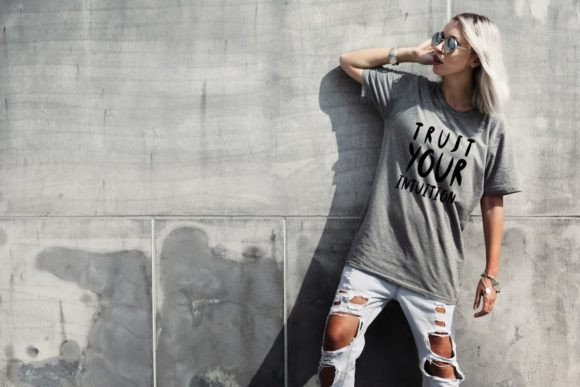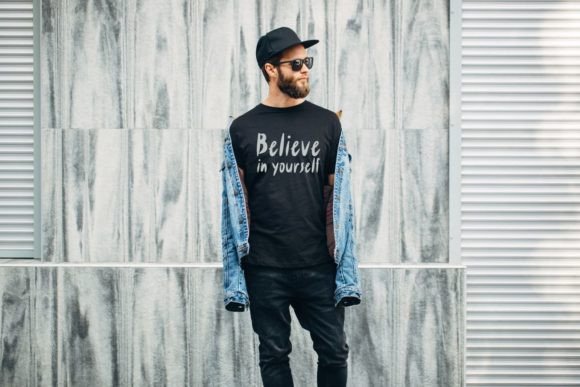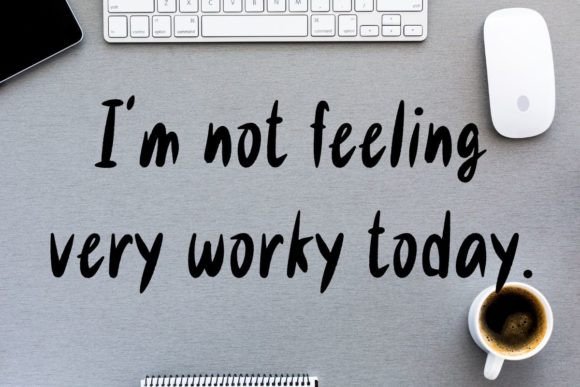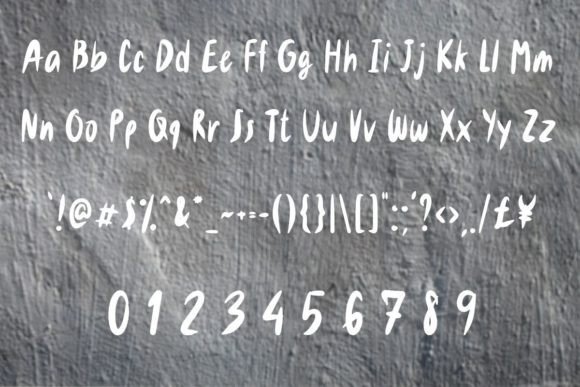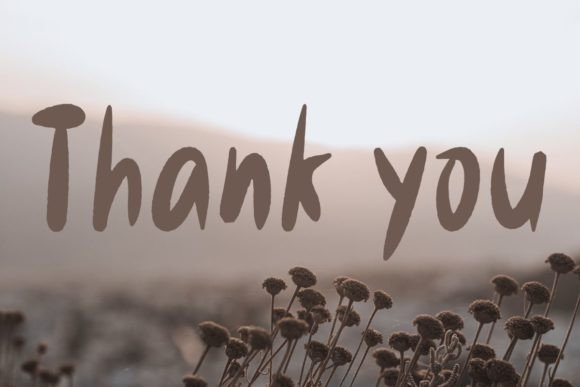
Introducing Animal Font: The Ultimate Choice for Creative Projects
Are you a designer, crafty person, or simply someone who loves to create unique and eye-catching content? Look no further! We’re excited to introduce you to Animal Font, a bold, hand-drawn font that’s perfect for bringing your creative ideas to life. In this article, we’ll dive into the features and benefits of Animal Font, and explore how you can use it to elevate your designs.
What is Animal Font?
Animal Font is a bold, hand-drawn font that’s designed to be both cute and thick. Its unique characters are carefully crafted to make a statement, making it perfect for creating posters, banners, advertising materials, covers, and many more. Whether you’re working on a personal project or a professional assignment, Animal Font is sure to add a touch of personality and whimsy to your designs.
Key Features of Animal Font
- Bold and Hand-Drawn: Animal Font is a bold, hand-drawn font that’s designed to stand out. Its unique characters are carefully crafted to make a statement.
- Cute and Thick: The font’s cute and thick characters make it perfect for creating eye-catching designs that appeal to a wide range of audiences.
- Versatile: Animal Font is versatile and can be used for a variety of projects, including posters, banners, advertising materials, covers, and more.
Benefits of Using Animal Font
- Adds Personality to Your Designs: Animal Font adds a touch of personality and whimsy to your designs, making them stand out from the crowd.
- Perfect for Kids and Adults Alike: The font’s cute and playful characters make it perfect for designs that appeal to kids and adults alike.
- Increases Readability: The font’s bold and thick characters make it easy to read, even from a distance.
- Customizable: Animal Font can be customized to fit your specific design needs.
Creative Ways to Use Animal Font
- Posters and Flyers: Use Animal Font to create eye-catching posters and flyers that grab attention.
- Banners and Signs: The font is perfect for creating bold and colorful banners and signs.
- Advertising Materials: Use Animal Font to create unique and effective advertising materials, such as brochures and business cards.
- Covers and Packaging: The font is perfect for creating eye-catching covers and packaging for books, products, and more.
| Font Name | Animal Font |